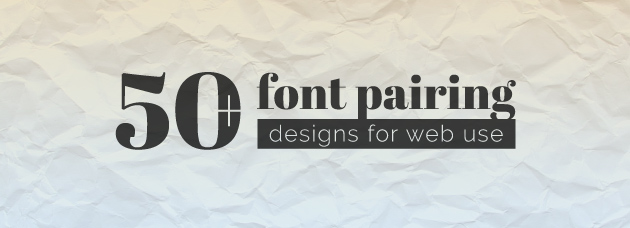
Wrexham script is a more condensed and angular sports inspired font with a vintage flair. Heritage font equipped with.
Vintage Retro Inspired Free Font Combinations Make The Cut
We reveal the font pairings that were just made for each other plus some top tips on finding your own perfect matches.
Vintage font combinations. Looking for a font that gives off that retro or vintage feel. Another cracking vintage display font from andreas leonidou ren is available in four weights supports greek. Heres a beautiful list of 40 free retro and vintage fonts all displayed in a unique format.
Graphic designer substitutes. Perhaps the most time consuming task youll face as a designer. Welcome to our ultimate collection of google font pairings and combinations.
I love pairing fonts together into gorgeous font combinations for use on flyers invitations. Seven free font combinations that are good for everything from graphic design to wedding invitations. All fonts are free for personal or commercial use.
15 great google font combinations for your next design project. 60 free retro and vintage fonts. Need some type inspiration.
Clothing brand logovintage design and much more. Als script with the abundance of handwriting fonts available on the web. Save time get inspired with these 15 stunning font combinations.